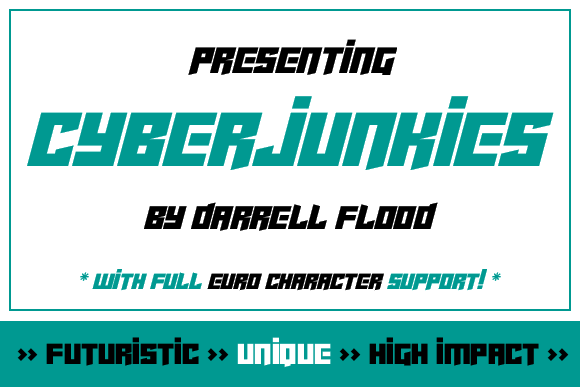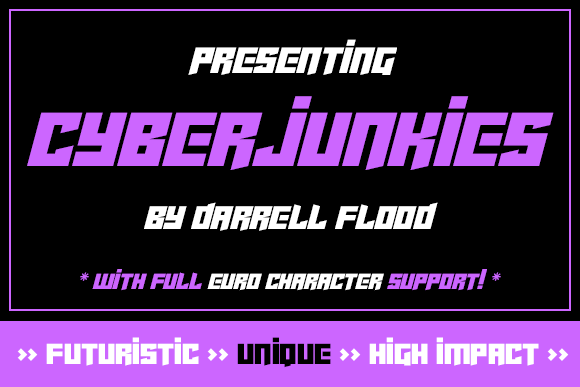
Introduction to Cyberjunkies Font
Cyberjunkies is a futuristic font with a slick, angular, modern style.
Perfect for sci-fi themes and alien designs .
Key Features of Cyberjunkies Font
Why Choose Cyberjunkies Font?
Cyberjunkies Font offers exceptional quality and versatility, making it a valuable addition to your design toolkit. Whether you’re creating for personal projects or commercial use, Cyberjunkies Font delivers professional results.